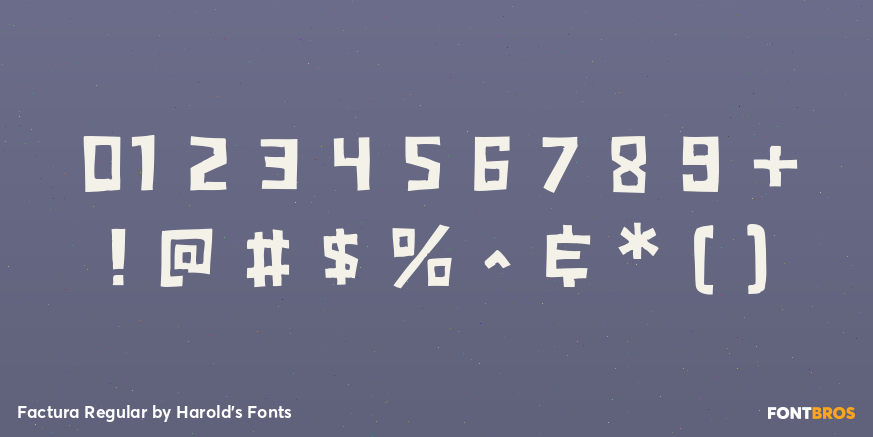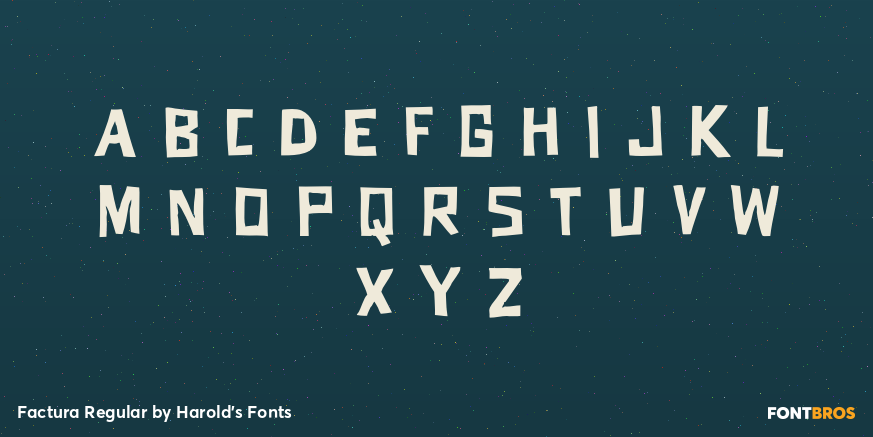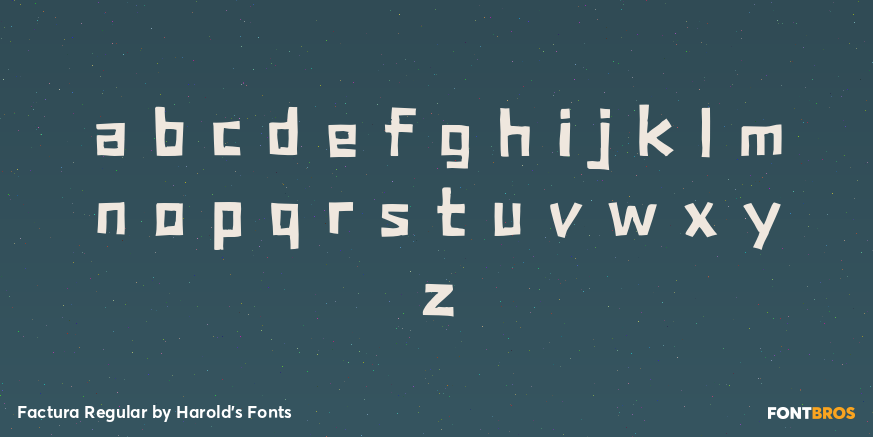
Factura Regular
Factura is a set of fonts that looks hand-carved. The letters are drawn almost entirely with straight lines, with offbeat shapes and jagged edges that can seem alternately playful or sinister.
Factura has two widths and full upper- and lowercase. The "Rough" version of each font reproduces the block print technique I used in the design process. You can mix and match the Rough and Regular if you want less of the stray bits.
Inspired by Saul Bass's classic poster for Hitchcock's "Vertigo."